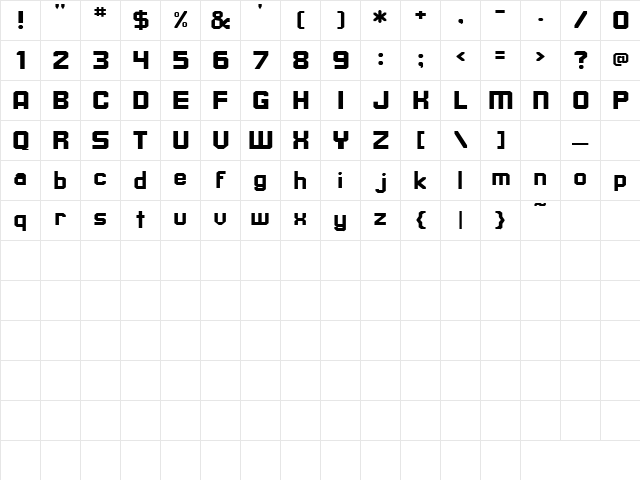
Marathon 4 Regular Free Font
Marathon 4 Regular
Design Context for Marathon 4
Marathon 4 is a composed and adaptable typeface that performs quietly and consistently across a wide range of design contexts.